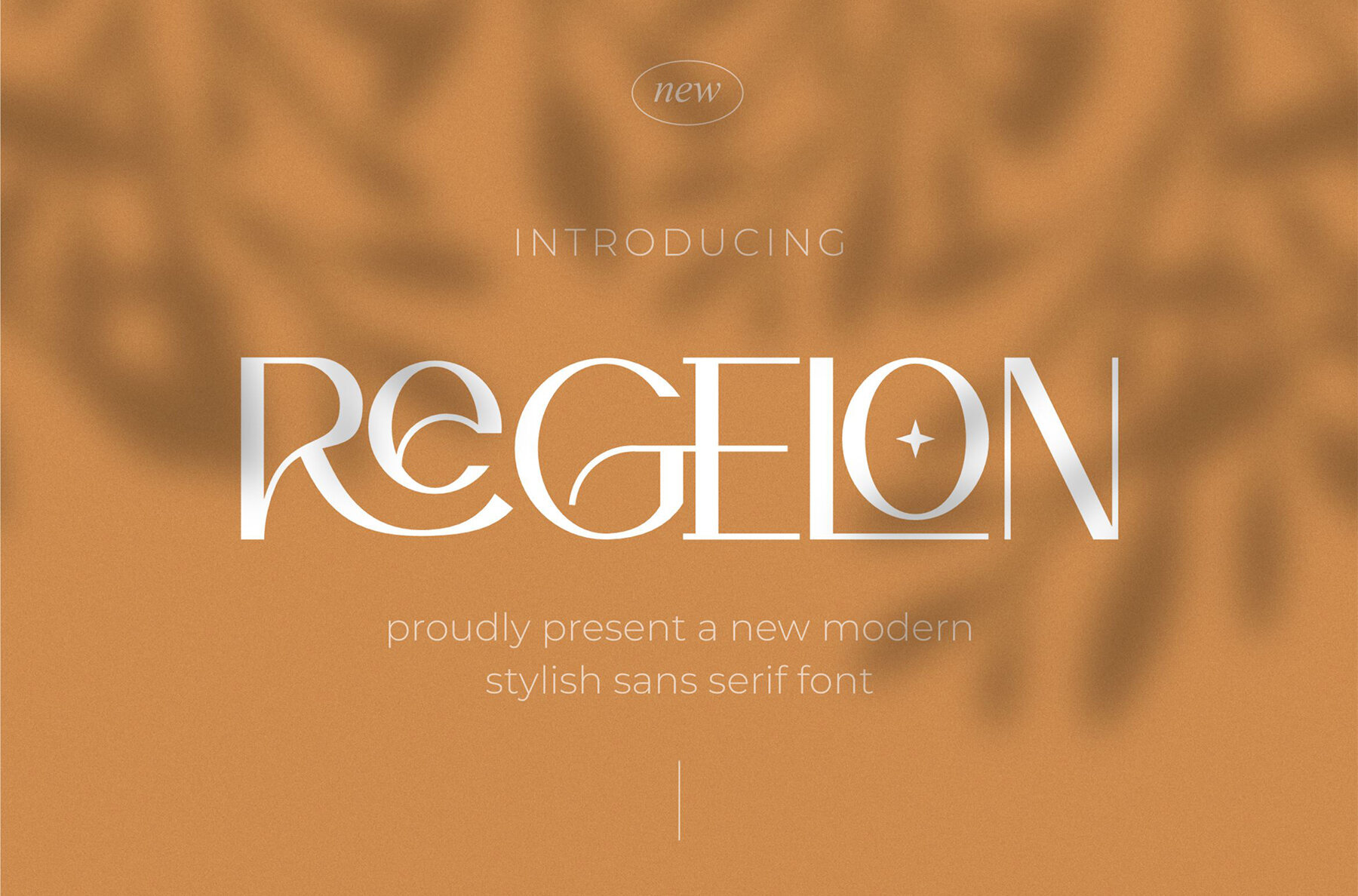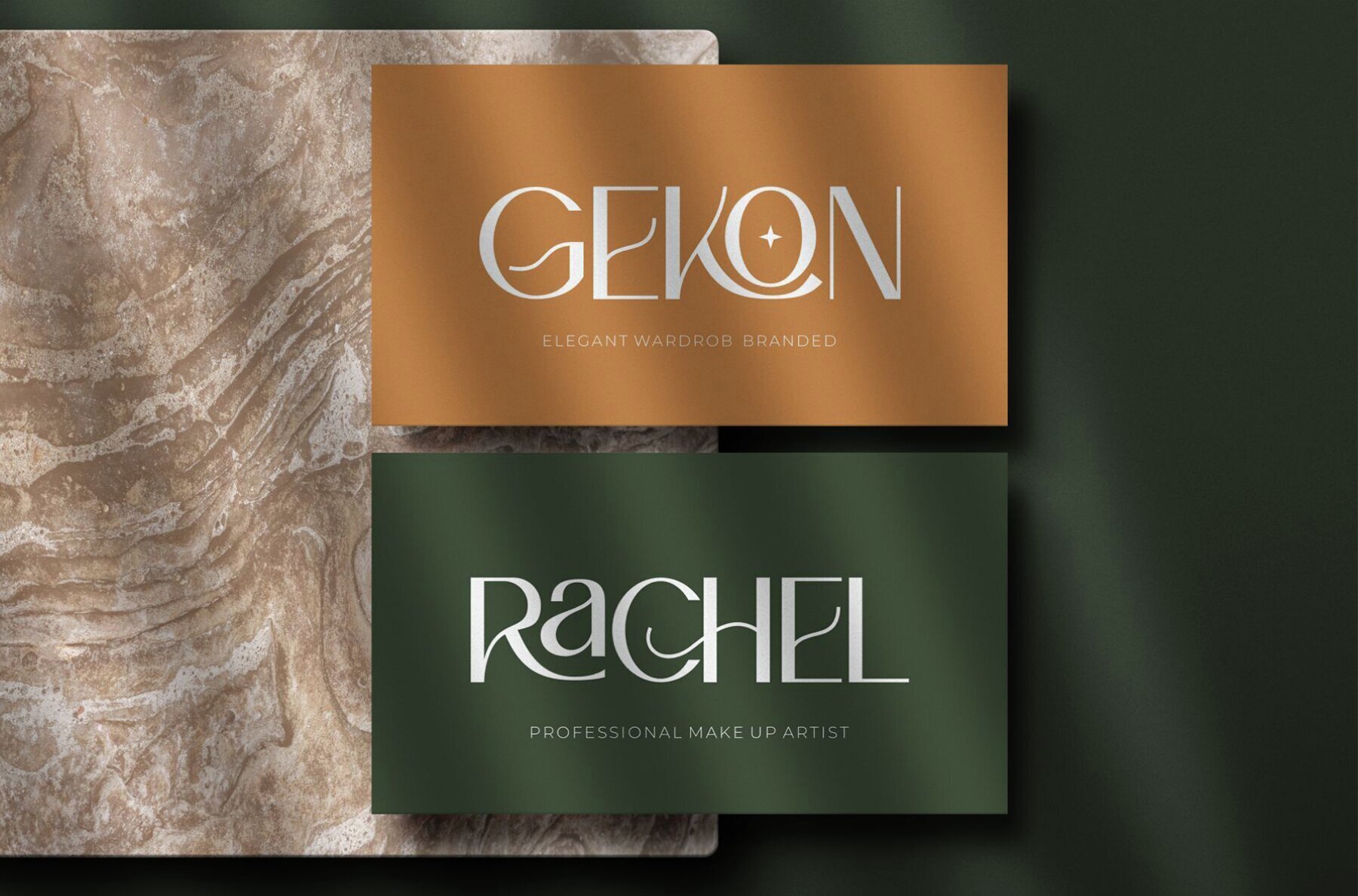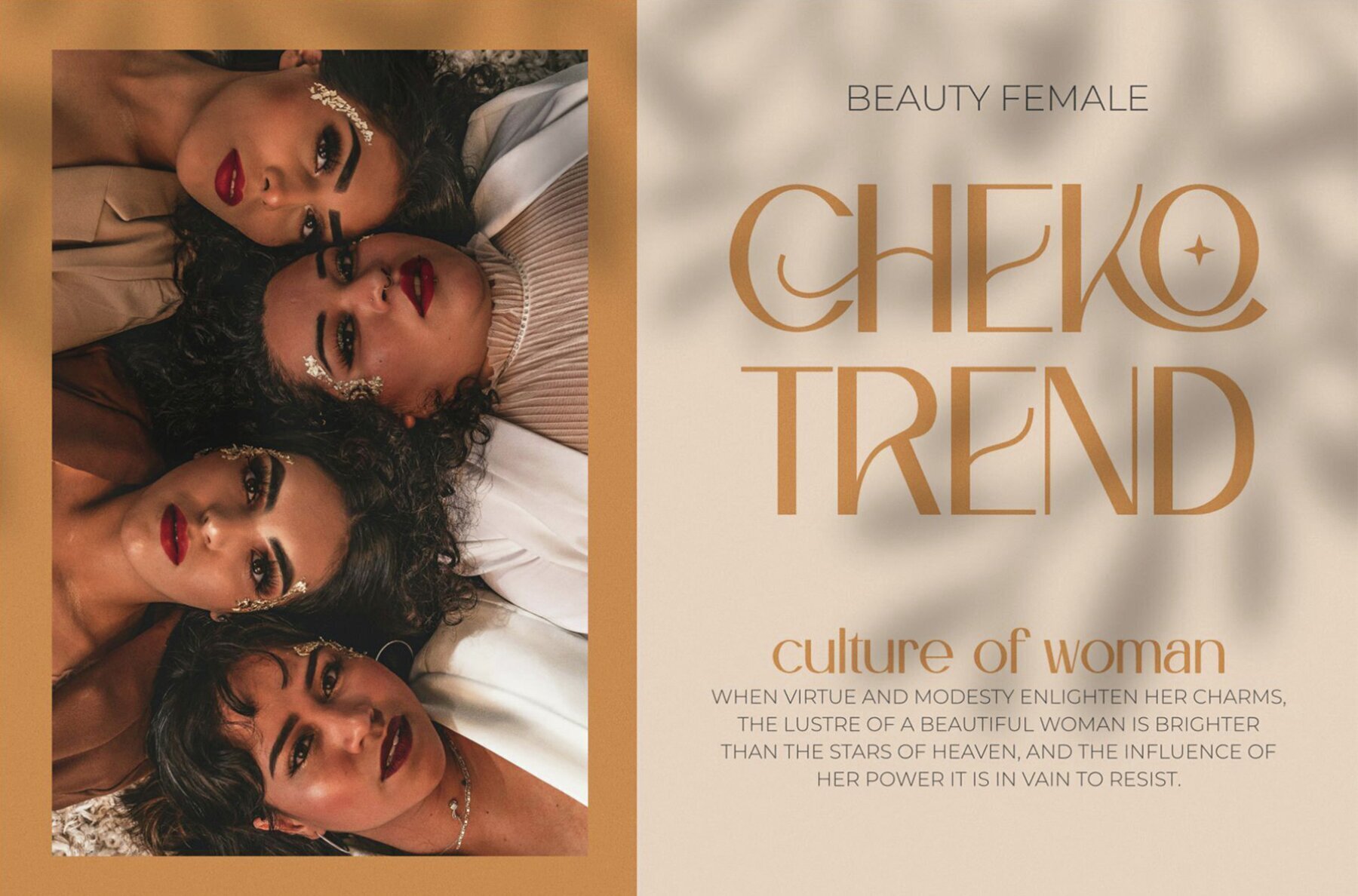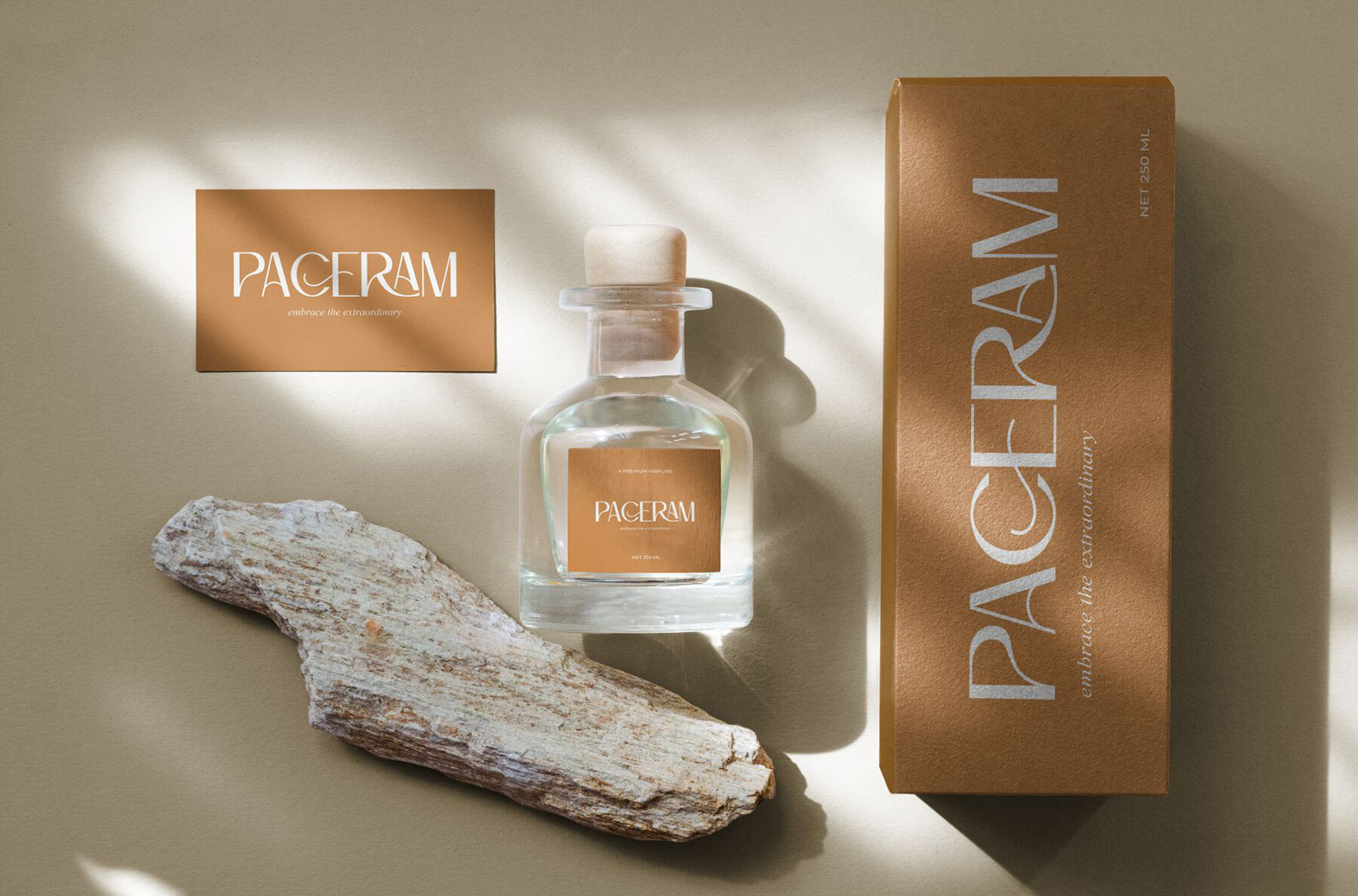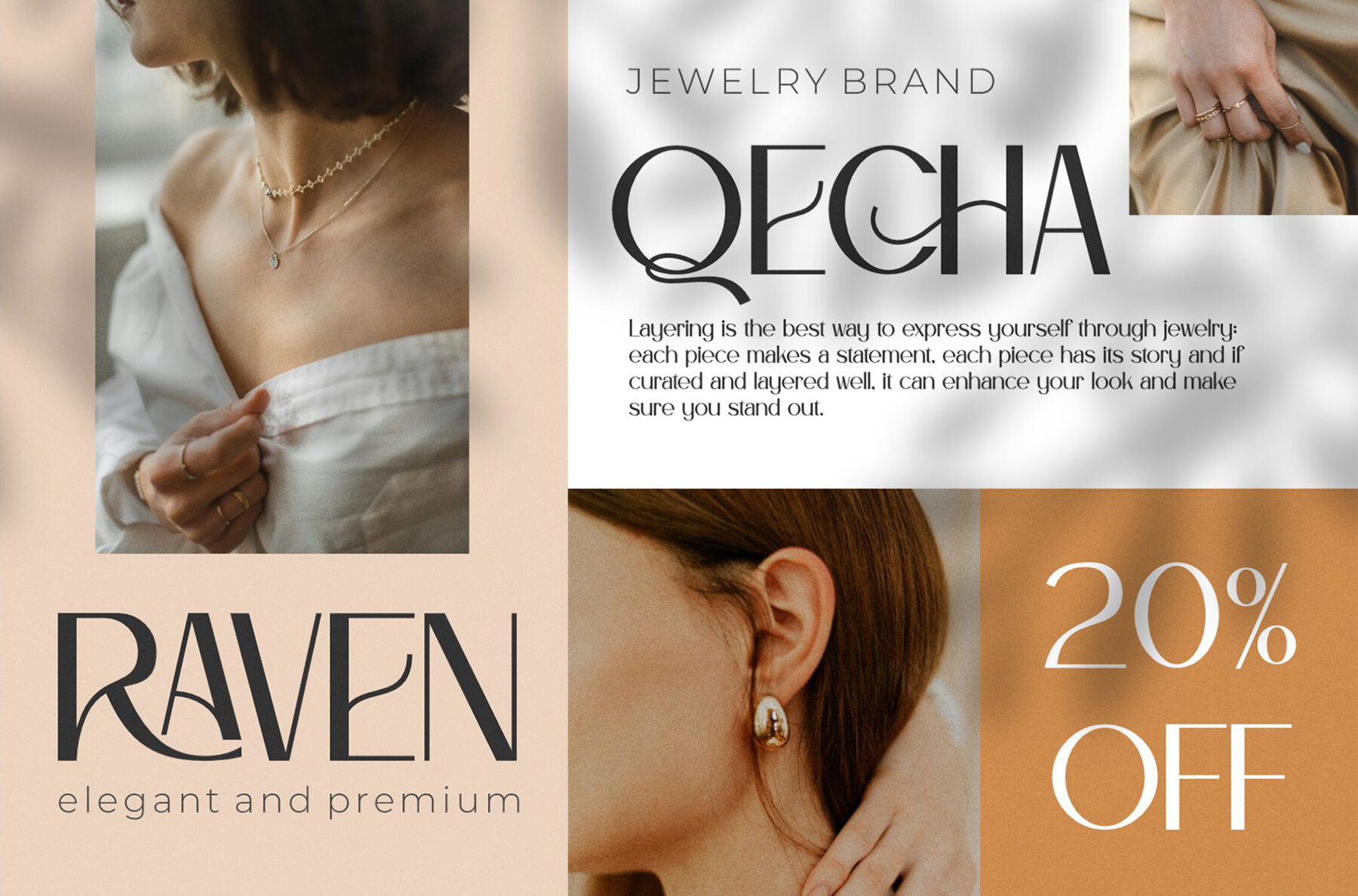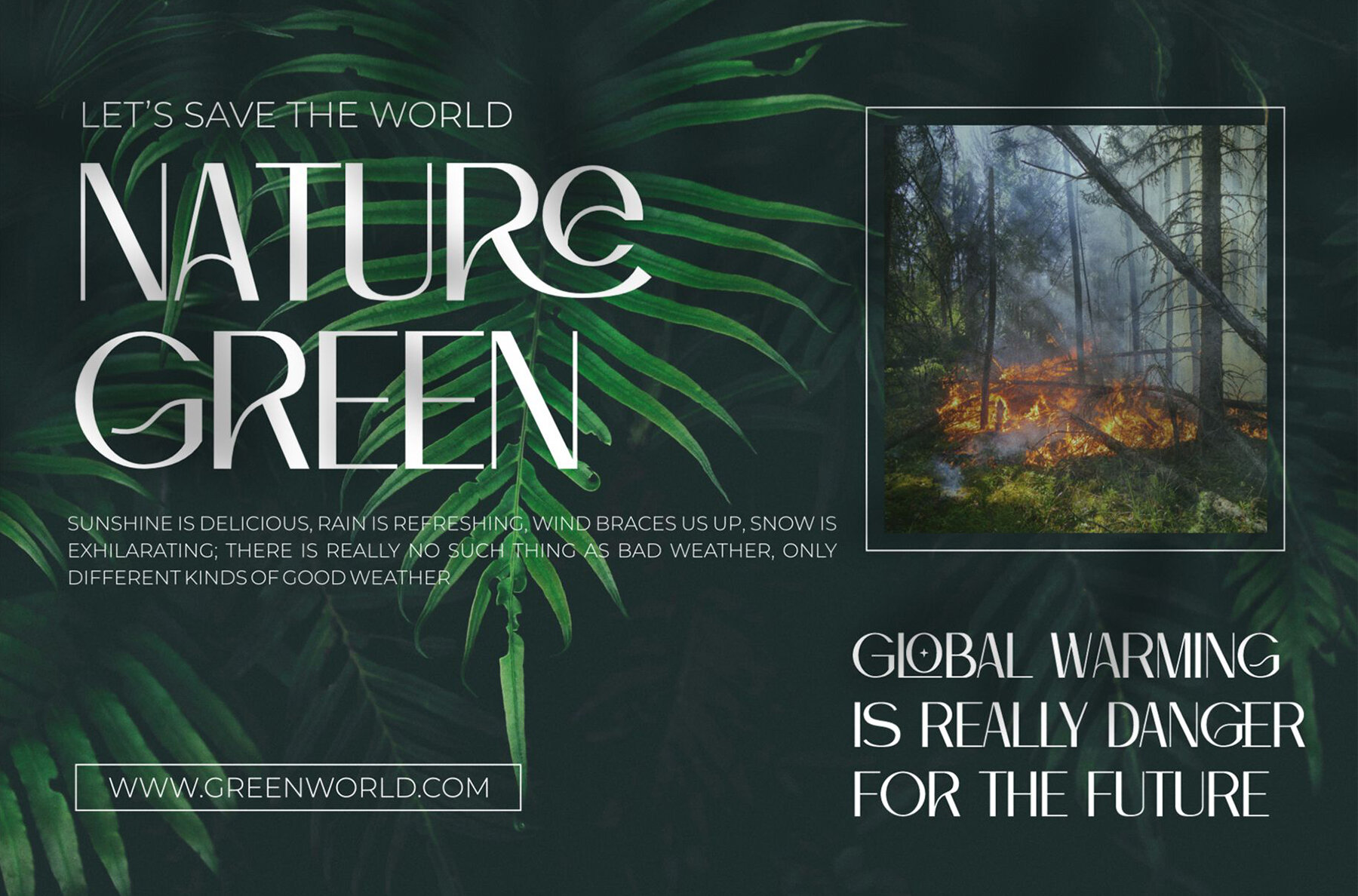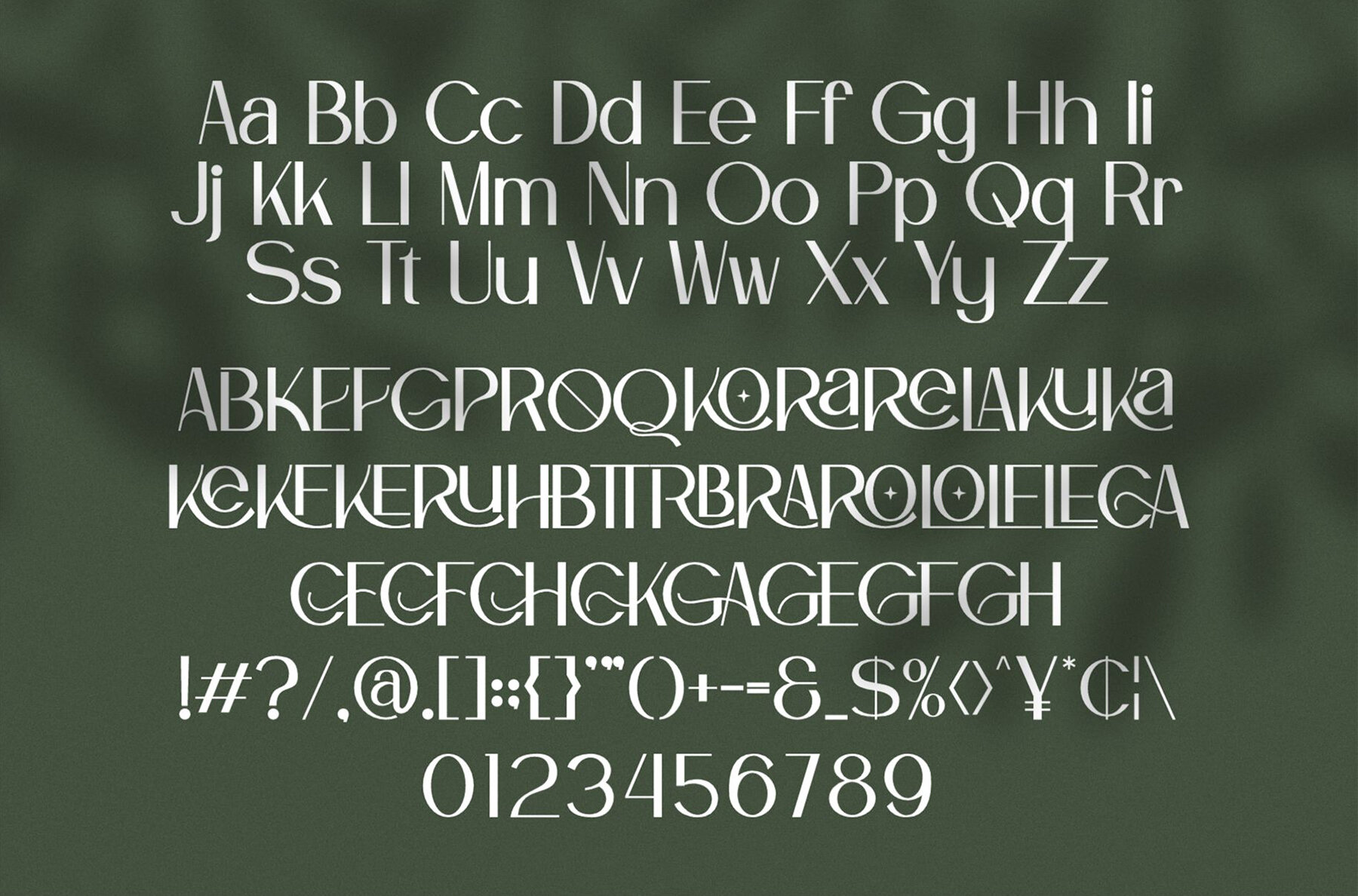
Regelon Font
Regelon
Regelon stands out as a modern and playful sans serif font. With its trendy, bouncy, and cute display style, this font embodies a unique wood-themed character. Regelon is a versatile choice, ideal for enhancing design projects like invitation cards, company logos, movie titles, business cards, book titles, and brand names.Regelon: A Modern Sans Serif with Playful Charm